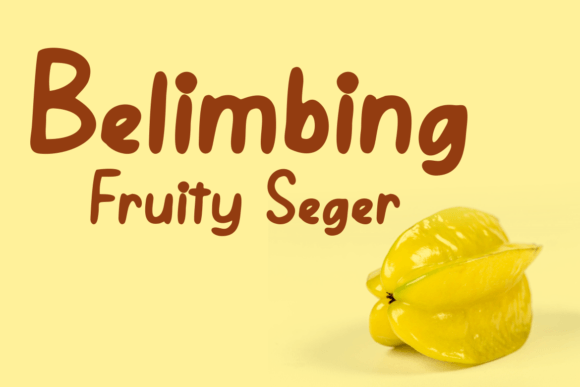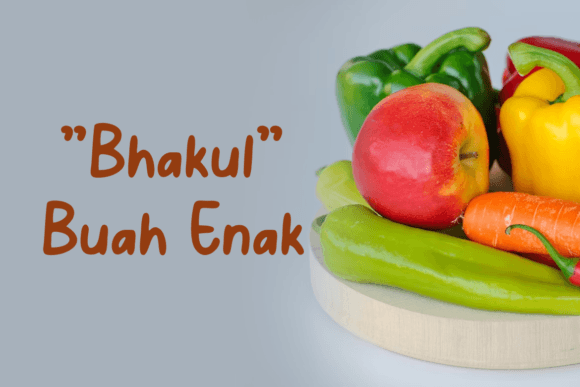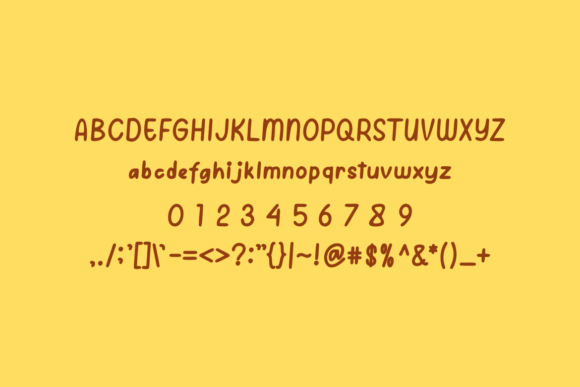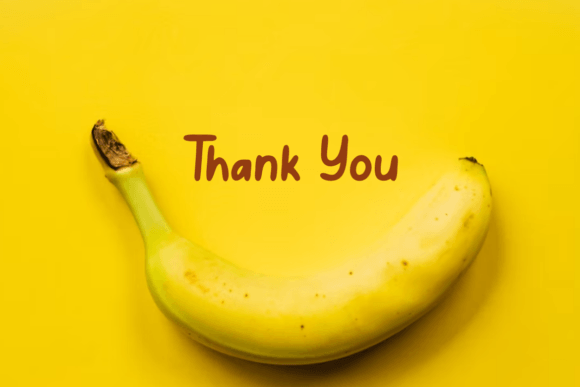
Dharrochy Font: Adding a Personal Touch to Your Designs
In the world of typography, fonts play a crucial role in conveying the tone and personality of a message. For designers and crafters looking to add a friendly, casual feel to their work, the Dharrochy font is an excellent choice. This playful, handwritten font is designed to bring a personal touch to your text, making it perfect for invitations, greeting cards, and other creative projects.
The Charm of Dharrochy Font
Dharrochy is a charming, bouncy font that exudes warmth and friendliness. Its handwritten letters are carefully crafted to give your text a personal, approachable feel that’s hard to resist. Whether you’re designing a wedding invitation, a birthday card, or a social media post, Dharrochy font is sure to make your message stand out.
Key Features of Dharrochy Font
- Playful and Handwritten: Dharrochy font is a playful, handwritten font that’s perfect for adding a personal touch to your text.
- Charming and Bouncy: The font’s charming, bouncy letters are designed to give your text a friendly, casual feel.
- Versatile: Dharrochy font is versatile and can be used for a variety of design projects, from invitations and greeting cards to social media posts and blog headers.
- Easy to Read: The font is easy to read, making it perfect for body text and headings.
Uses of Dharrochy Font
Dharrochy font is perfect for a wide range of design projects, including:
- Invitations: Use Dharrochy font to create beautiful, personalized invitations for weddings, birthday parties, and other special occasions.
- Greeting Cards: Add a personal touch to your greeting cards with Dharrochy font, making them perfect for birthdays, holidays, and other celebrations.
- Social Media Posts: Use Dharrochy font to create eye-catching social media posts that stand out from the crowd.
- Blog Headers: Add a touch of personality to your blog headers with Dharrochy font, making your blog posts more engaging and fun to read.
Tips for Using Dharrochy Font
In conclusion, Dharrochy font is a playful, handwritten font that’s perfect for adding a personal touch to your text. With its charming, bouncy letters, it’s ideal for making invitations, greeting cards, or any design where you want a friendly, casual feel. Whether you’re a designer or crafter, Dharrochy font is a great choice for your next project.